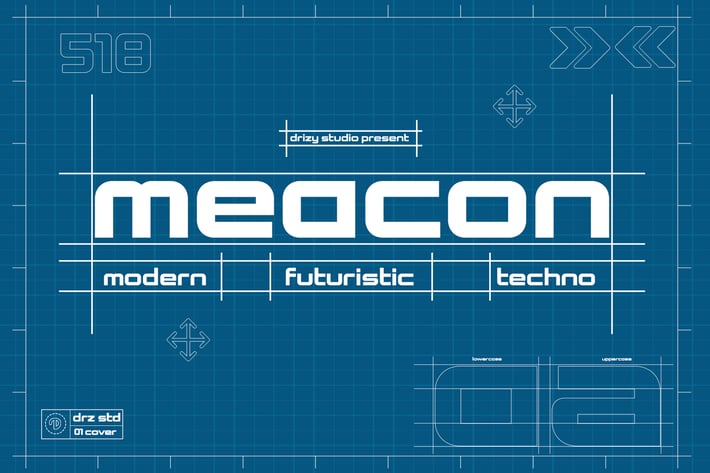
Meacon - Modern Futuristic Font
Meacon is a Modern Futuristic Font from Drizy studio. Offering all the basic styles you will need especially for modern theme project.